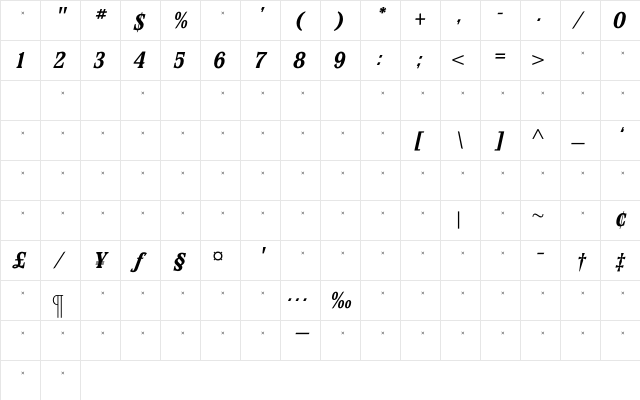
StirlingBoldItalicTab Regular
Design Context for StirlingBoldItalicTab
StirlingBoldItalicTab is a composed and adaptable typeface that performs quietly and consistently across a wide range of design contexts. The slanted form adds forward momentum and visual energy. Its bold stroke weight gives it real presence on the page.